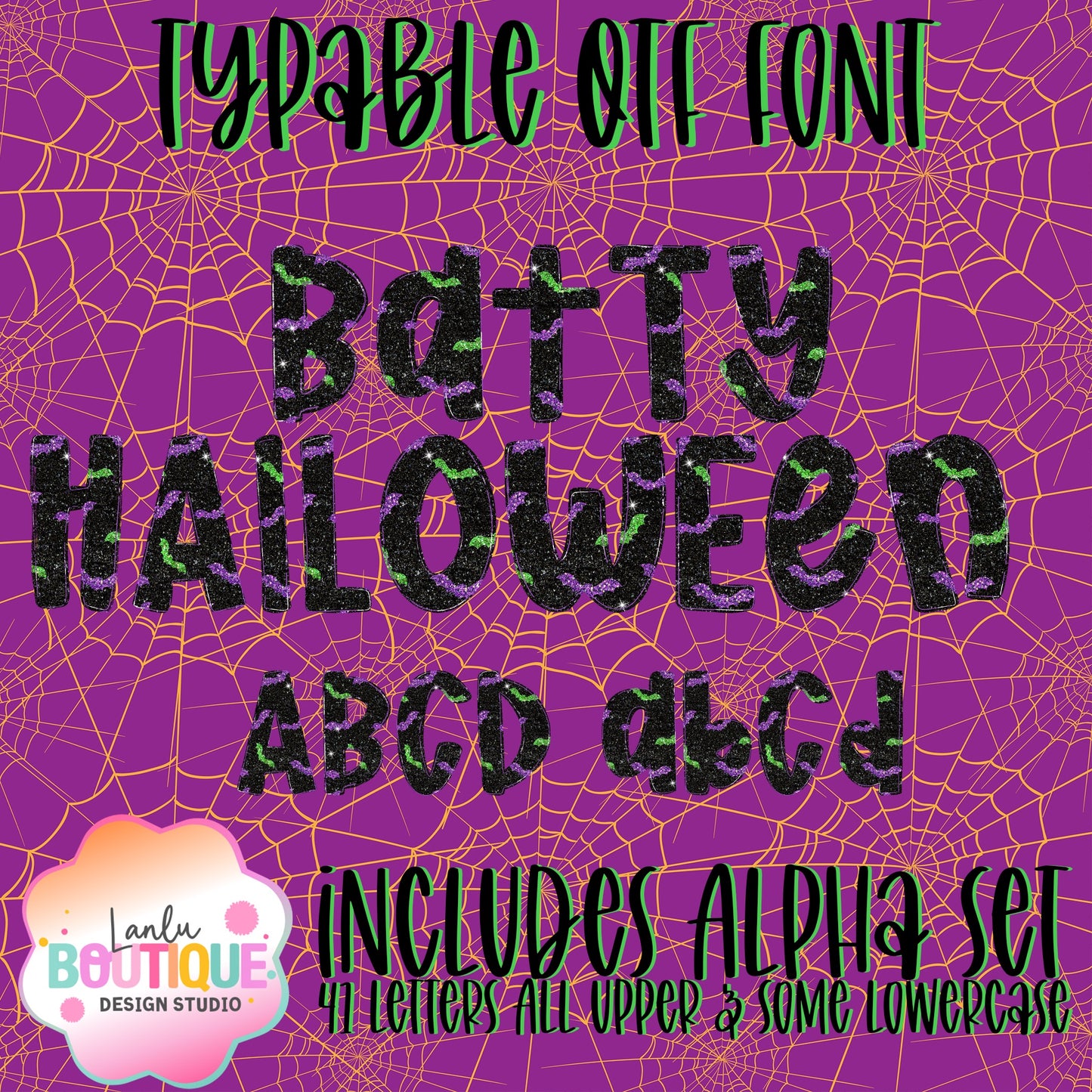
Batty Halloween Glitter OTF Typable Hand drawn Font
Elevate your Halloween designs with the Batty Halloween Glitter OTF font, a hand-drawn, typable typeface that combines elegance with festive charm. Featuring subtle glitter effects, this font adds a refined sparkle to invitations, posters, and digital projects, making your seasonal creations stand out with an artful, sophisticated touch.